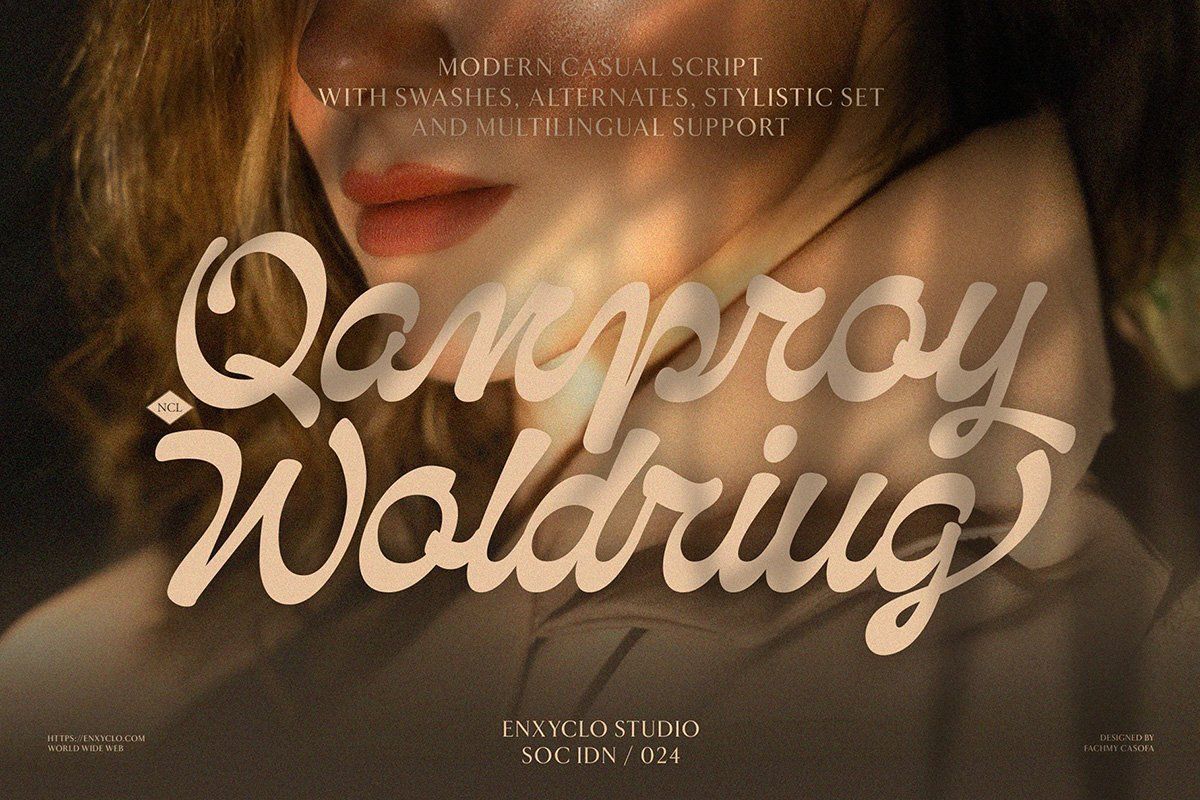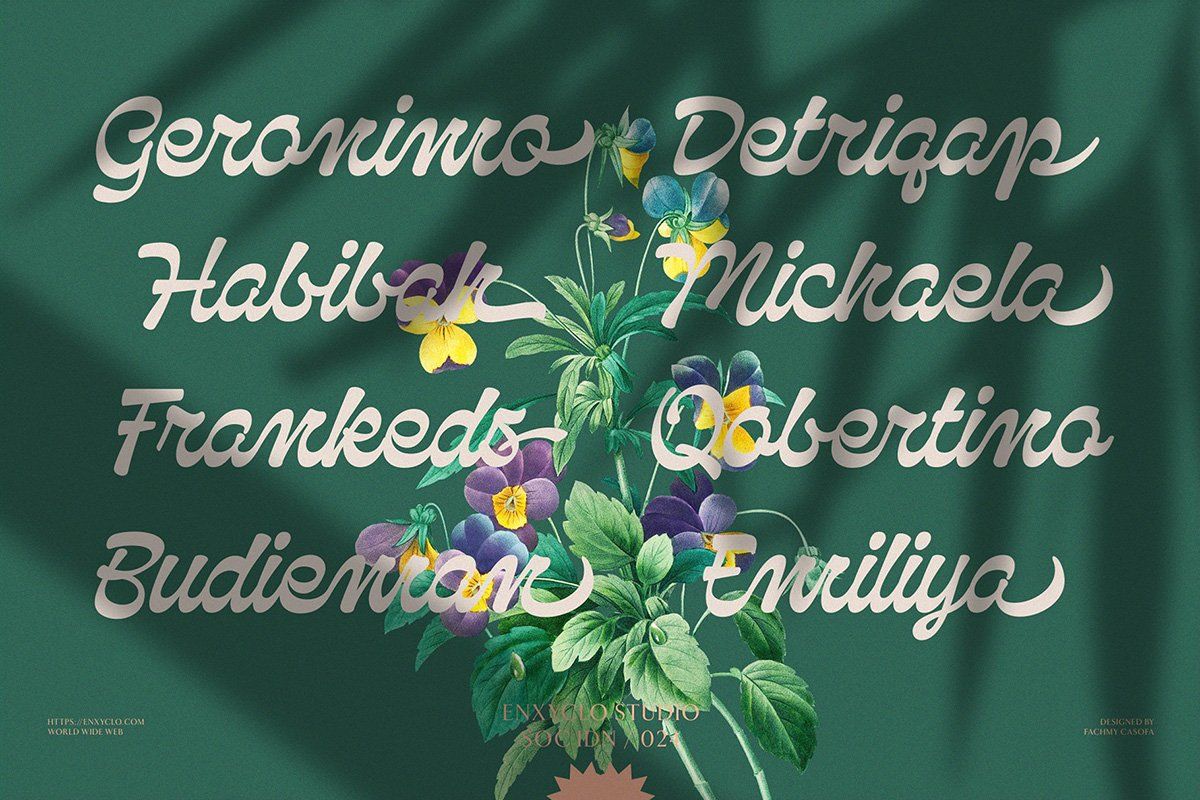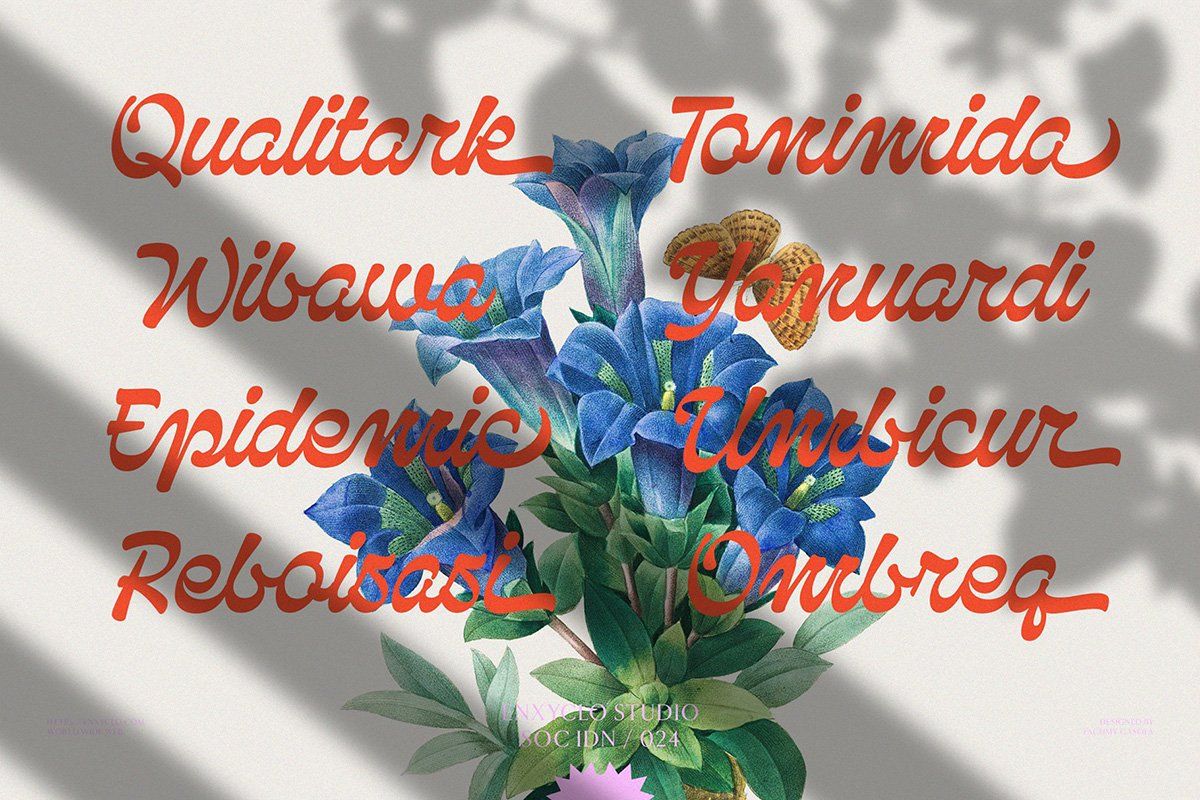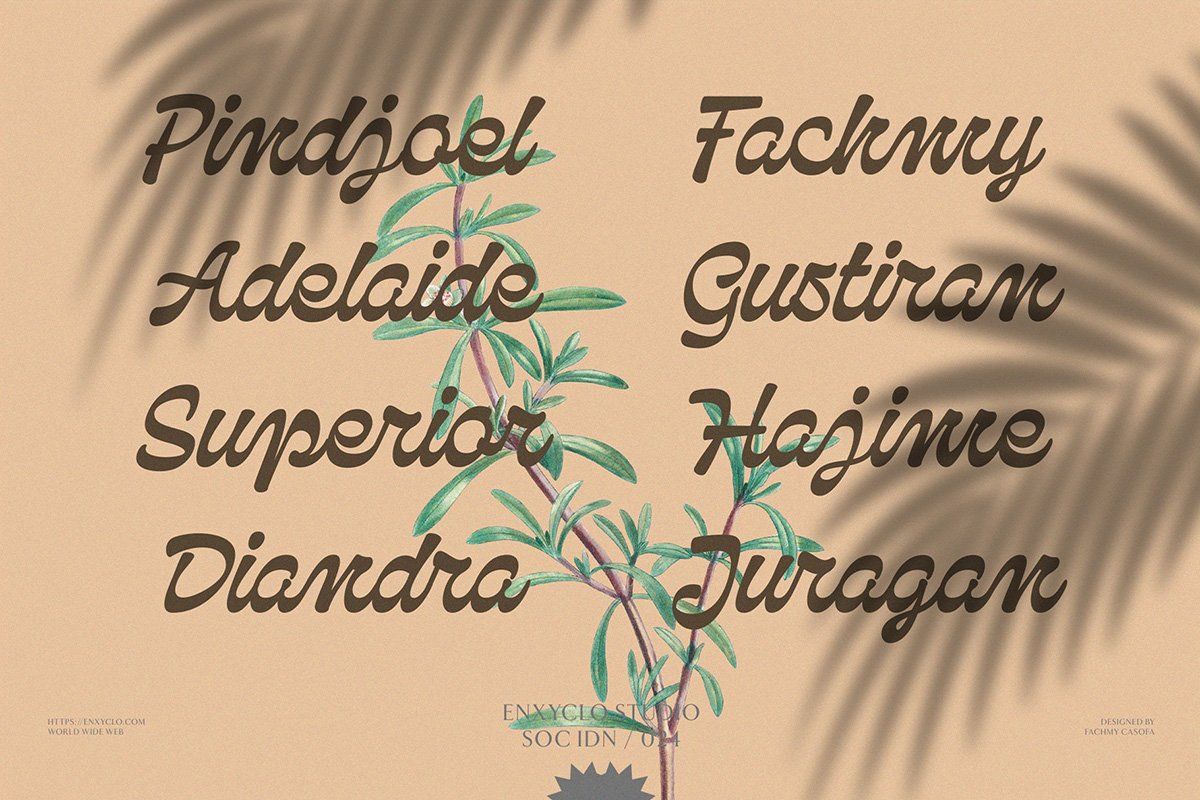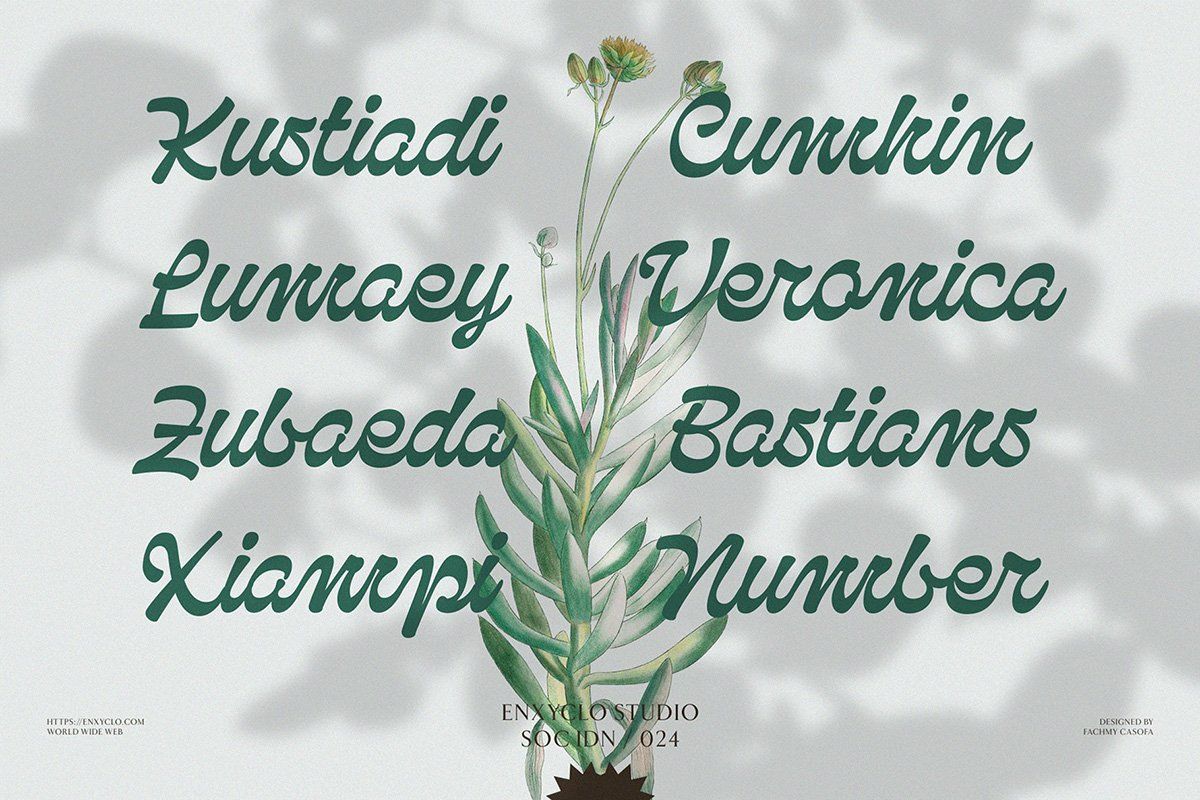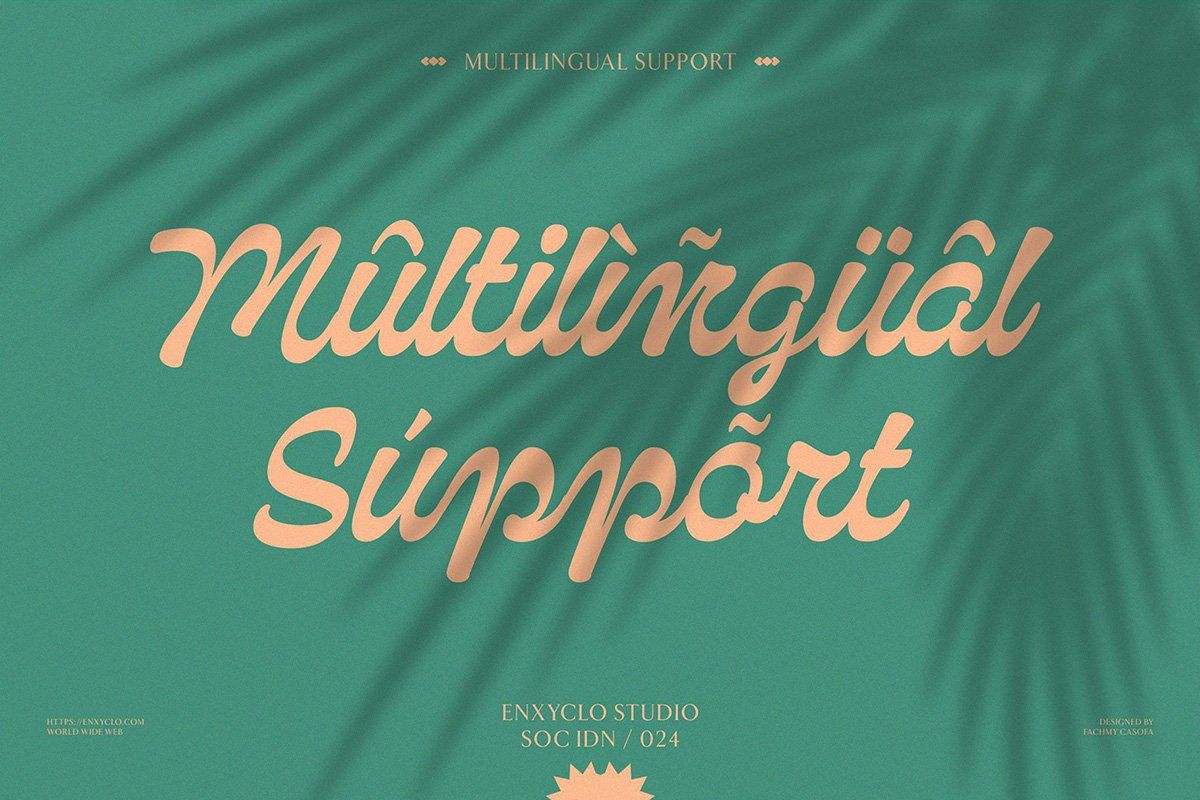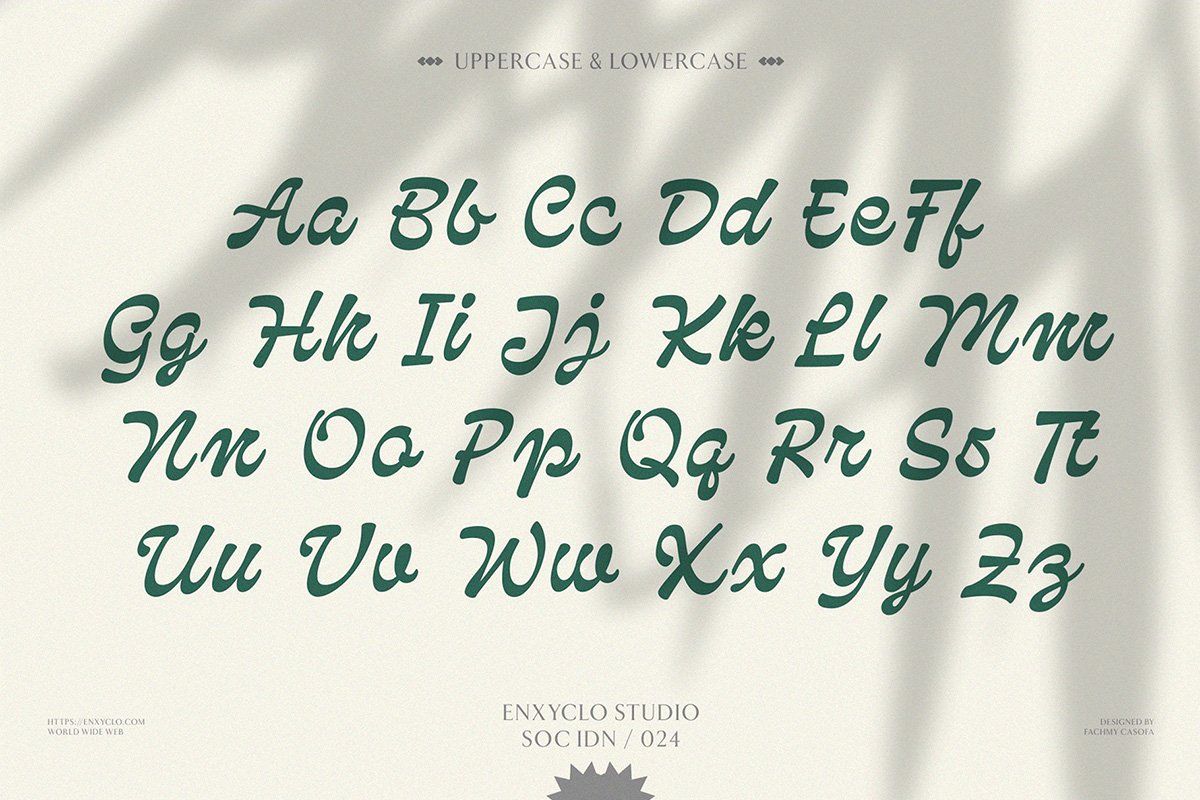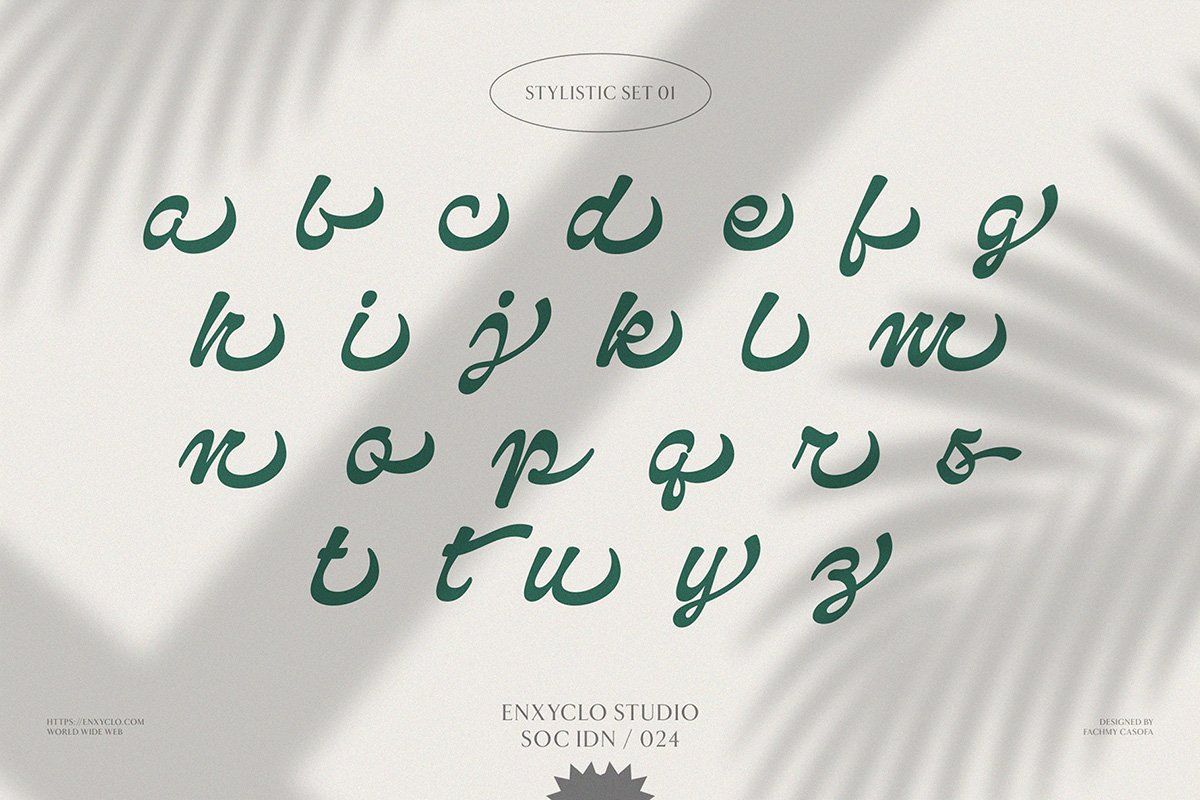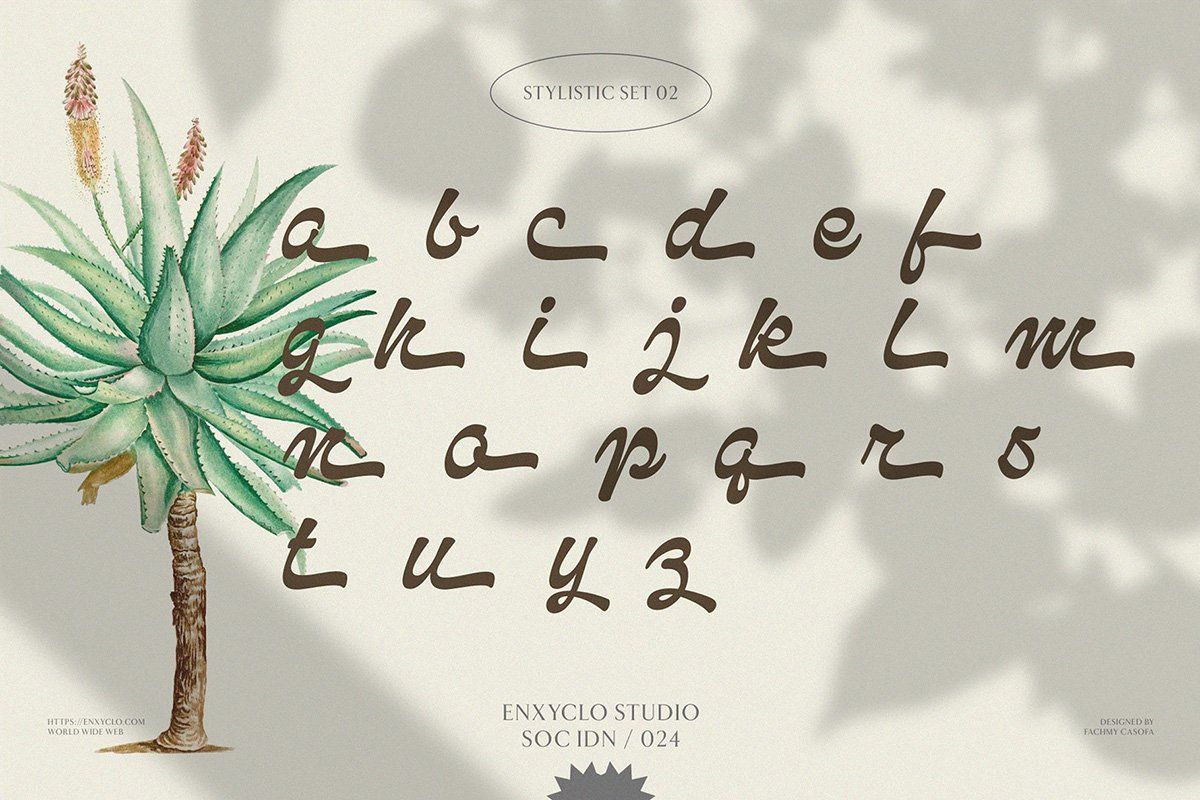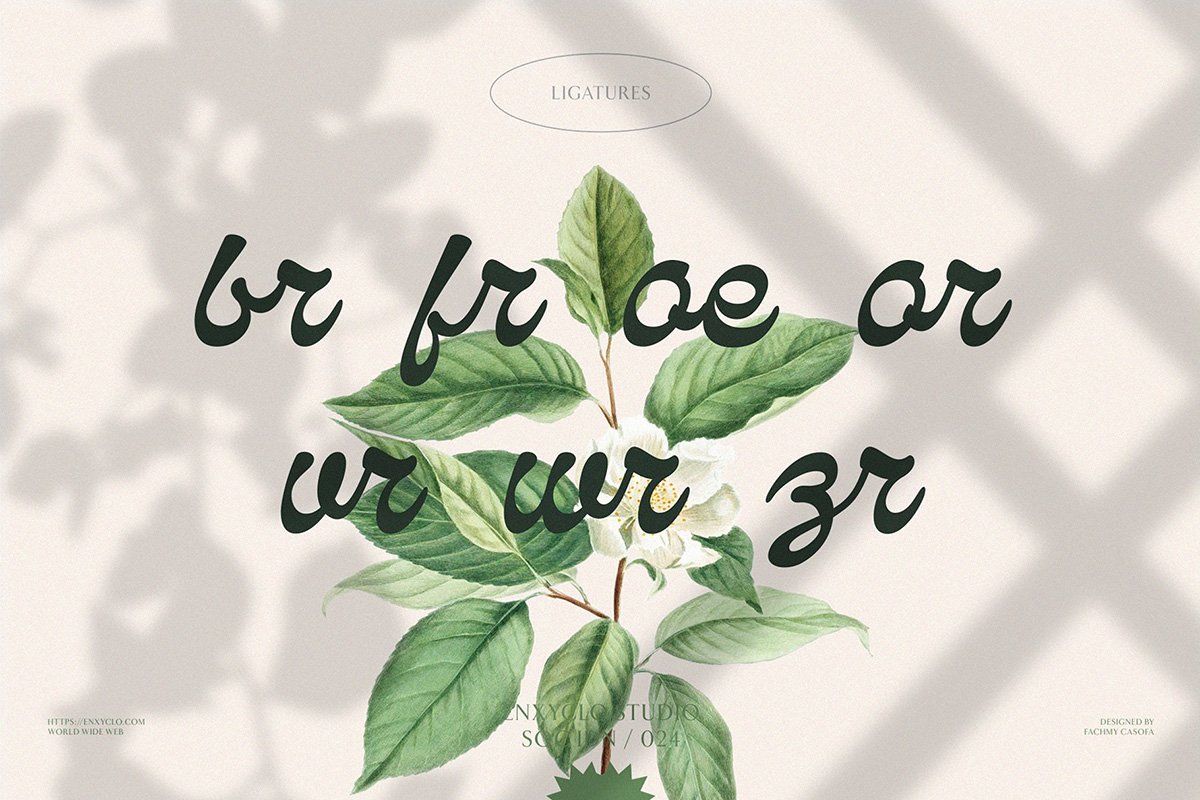
NCL QANPROY WOLDRIUG is a timeless modern luxury script font designed to celebrate the beauty of elegance and bold expression. Crafted with graceful curves and confident strokes, this typeface blends lavish sophistication with contemporary style, creating a visual identity that feels rich, luxurious, and undeniably premium. Every detail is shaped to deliver a refined aesthetic that speaks of glamour, exclusivity, and modern beauty. Balancing bold character with delicate elegance, NCL QANPROY WOLDRIUG transforms typography into an art form. Its flowing script style creates a strong presence for logos, brand identities, and fashion visuals, while maintaining a smooth and elegant rhythm that feels timeless. The result is a typeface that captures attention effortlessly, making every word appear stylish, sophisticated, and full of personality.
Inspired by the world of fashion, beauty, cosmetic, skincare, and boutique branding, this font is designed to elevate premium visual experiences. Whether used for a luxury logo design, high-end packaging, editorial layouts, or glamorous campaigns, NCL QANPROY WOLDRIUG adds a rich and aesthetic touch that enhances the emotional value of your brand. Created for designers and creative brands seeking distinction, NCL QANPROY WOLDRIUG is more than a script font—it is a visual signature of modern luxury, elegant storytelling, and premium design excellence, helping your creations leave a lasting and unforgettable impression.
• 294 Unique Glyphs
• Stylistic Set 1-2
• 7 Ligatures
• Numeral, Punctuation & Symbols
PERFECT FOR
• Luxury Logo & Branding
• Fashion & Boutique Identity
• Beauty, Cosmetic & Skincare Packaging
• Premium Product Labels
• Glamour Advertising Campaigns
• Elegant Editorial & Magazine Design
• Signature Logos & Personal Branding
• Wedding Invitations & Luxury Stationery
• Social Media Branding
• High-End Visual Identity Design